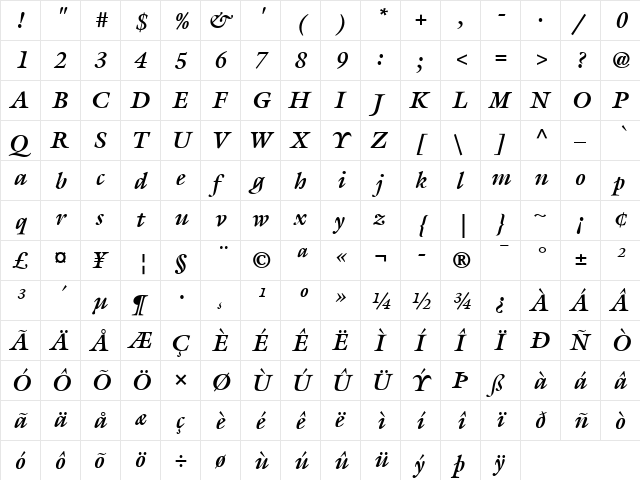
Galliard LT Bold Italic
Design Context for Galliard LT Typeface
Galliard LT offers clean, dependable letterforms without strong stylistic allegiance, making it a practical choice for designers who need flexibility. Its italic angle brings a sense of urgency and motion to the letterforms. The heavy weight commands attention and anchors typographic hierarchies.
Pro Tip: Use Galliard LT for emphasis, pull quotes, and subheadings where its slanted energy can add rhythm to the layout.